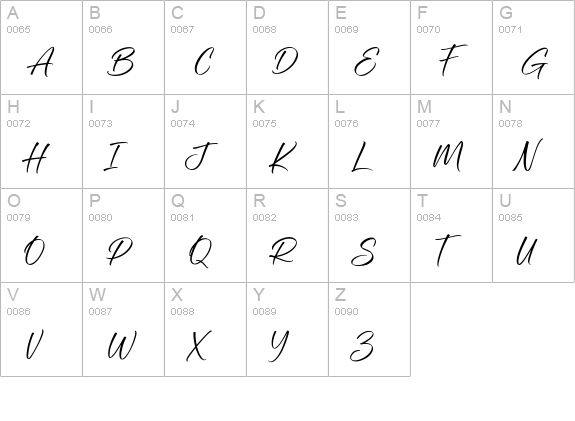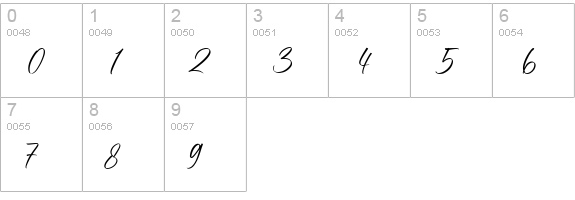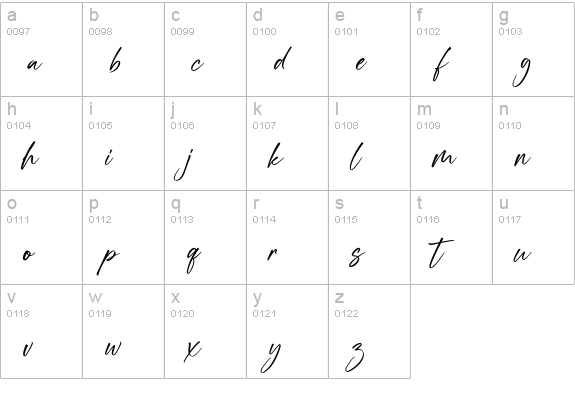
Sienthas Handwritten Font Font Details
Sienthas Handwritten Font is a free for personal use font in the Script > Handwritten category, designed by hanzel_space. It has been downloaded 36 times and is available for Windows, Mac and Linux.
Sienthas Handwritten Font is a charming and versatile typeface that exudes elegance and personality. With its flowing strokes and unique letterforms, this font is perfect for adding a touch of sophistication to your projects. Whether you're creating wedding invitations, branding materials, or social media graphics, Sienthas Handwritten Font will make your designs stand out.